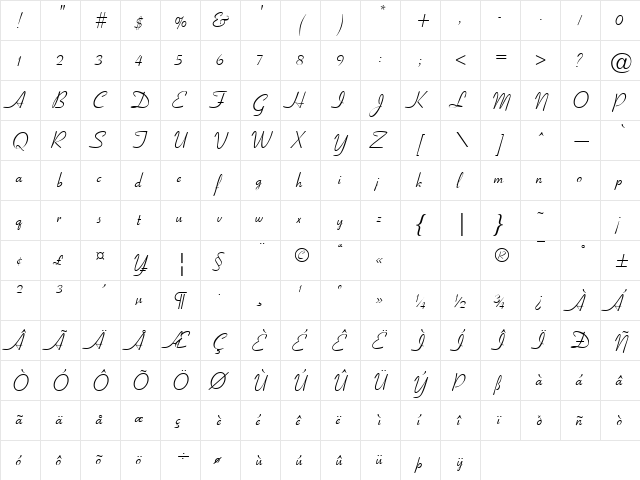
GE ElegantScript Regular Font Preview
GE ElegantScript Regular
GE ElegantScript Regular Font Details
Design Context for GE ElegantScript Typeface
GE ElegantScript flows with the natural rhythm of handwritten lettering, making it ideal for designs that call for warmth and personal expression.
Font Pairing: Combine GE ElegantScript with a simple geometric sans for maximum contrast — the tension between flowing curves and clean structure is a classic typographic pairing.
Pro Tip: Pair GE ElegantScript with a clean sans-serif for supporting text. The contrast between fluid script and geometric structure creates an elegant typographic hierarchy.